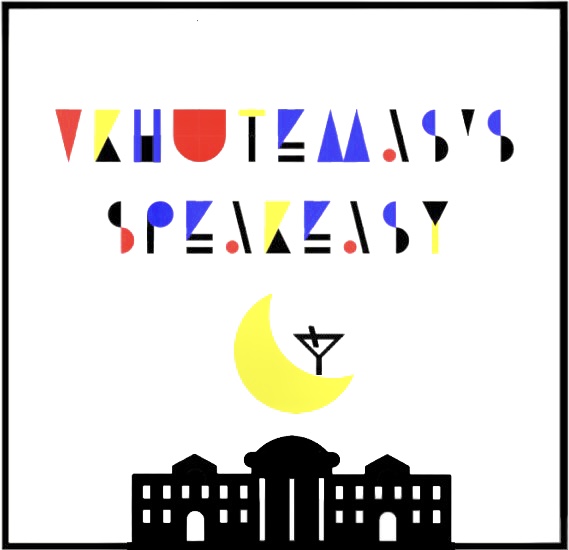
I also wanted to create a font in the style of Mondrian's paintings. But this one is clearly better. I'm deleting mine... good luck!)
sychoff, i would still encourage you to continue your mondrian styled work :)
An effective combination of coloured geometric shapes and black lines.
Congratulations! FontStruct Staff have deemed your FontStruction worthy of special mention. “vkhutemas's speakeasy” is now a Top Pick.